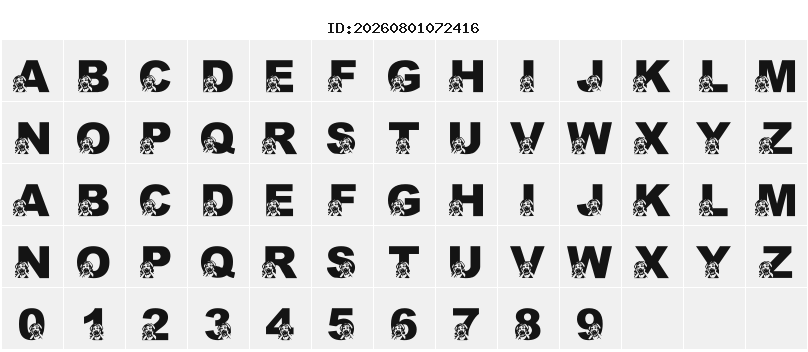
• Font Name: LMS Oh The Horror Of It All
About LMS Oh The Horror Of It All.ttf
LMS Oh The Horror Of It All.ttf is a modern, elegant sans-serif font designed for ultimate readability and visual harmony. Perfect for branding, headlines, web design, and print materials.